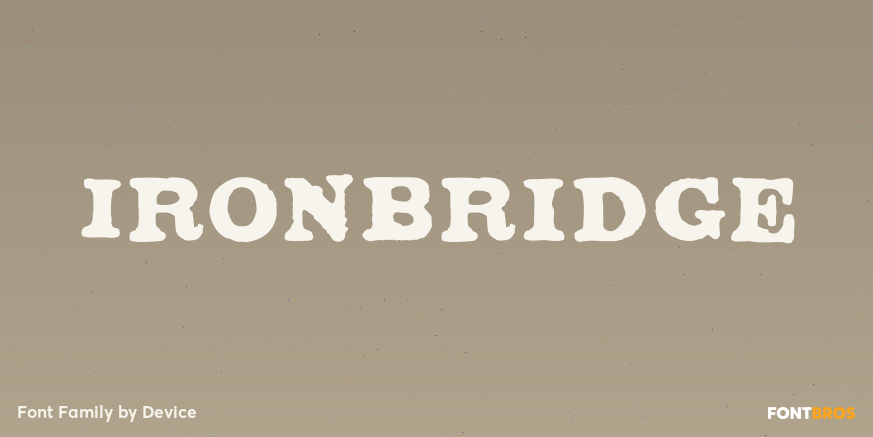
Ironbridge
An Industrial Revolution cast iron plaque from Bristol Temple Meads Station serves as inspiration for this antique font. The plaque commemorates the design contribution of Isambard Kingdom Brunel, who in March 1833 at 27 was appointed chief engineer of…